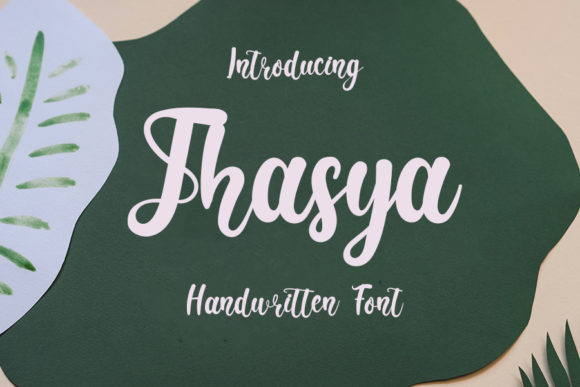
Unleash the beauty of your wedding invitations and cards with Thasya Font, a captivating script font crafted by ONE DESIGN. Thasya is not just a font; it's an expression of elegance, romance, and joy.
Picture this: your wedding invitations adorned with Thasya's delicate strokes, each letter dancing gracefully across the page. Your guests will be mesmerized by the charm and sophistication of your design, setting the tone for an unforgettable celebration.
Thasya's enchanting curves and flourishes add a touch of whimsy and playfulness to any design. Whether you're creating save-the-dates, menus, or thank-you cards, Thasya will elevate your words and make your message truly shine.
Beyond weddings, Thasya's versatility extends to a wide range of design projects. Its charming personality brings a touch of elegance to logos, branding materials, social media graphics, and even personal correspondence. Let Thasya be your creative companion and transform your designs into works of art.
With Thasya, you'll be part of a community of creatives who appreciate the beauty of handwritten typography. Join countless designers, calligraphers, and artists who have embraced Thasya's magic and let your creativity flourish.
Don't settle for ordinary fonts that blend into the background. Embrace the exquisite beauty of Thasya and let your designs bloom with charm and individuality. Thasya is more than a font; it's an experience. Embrace it today and unlock a world of creative possibilities.